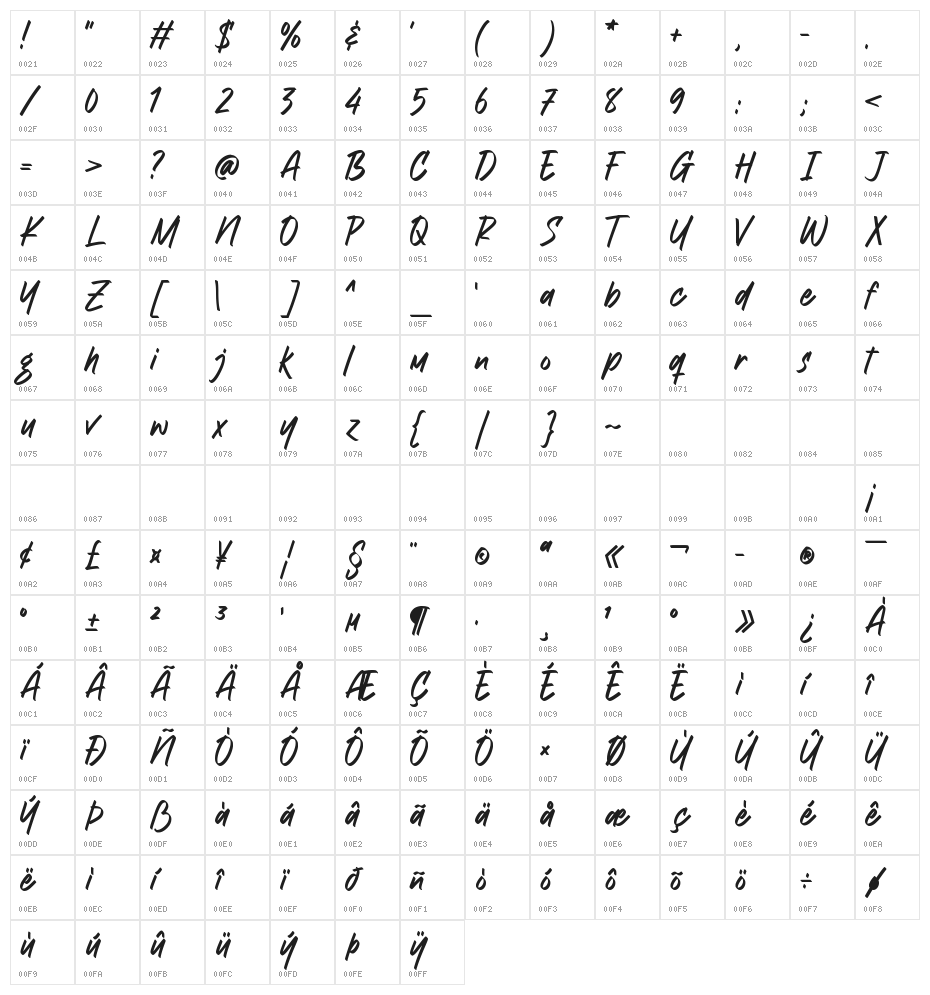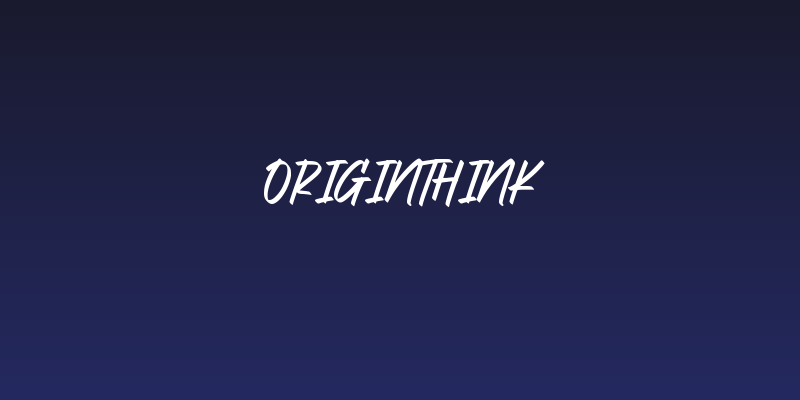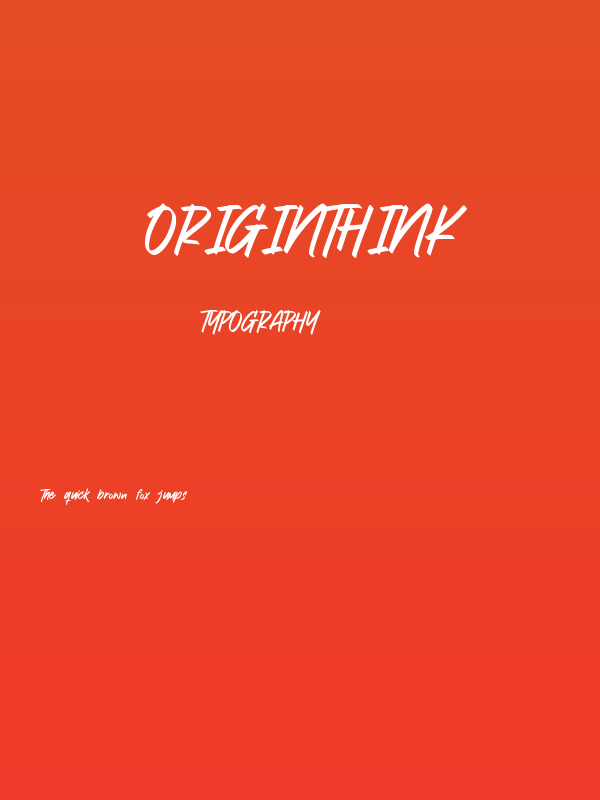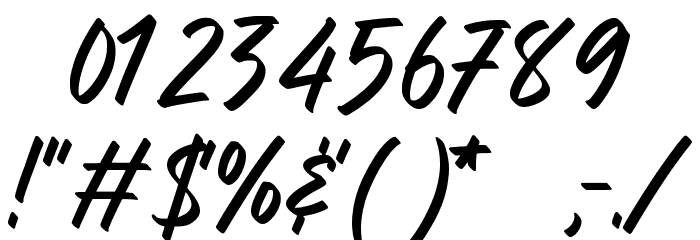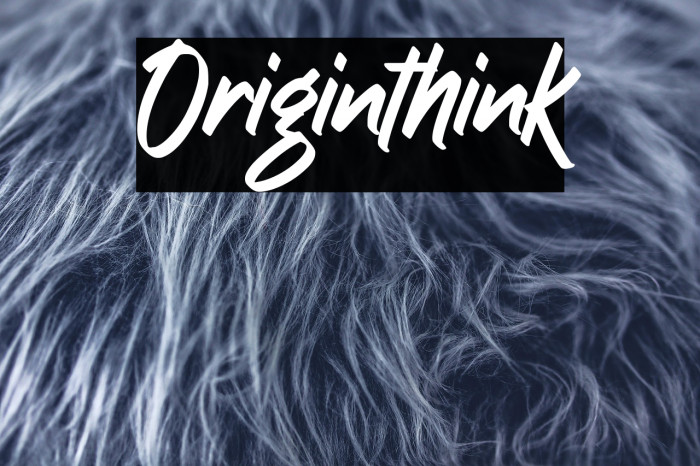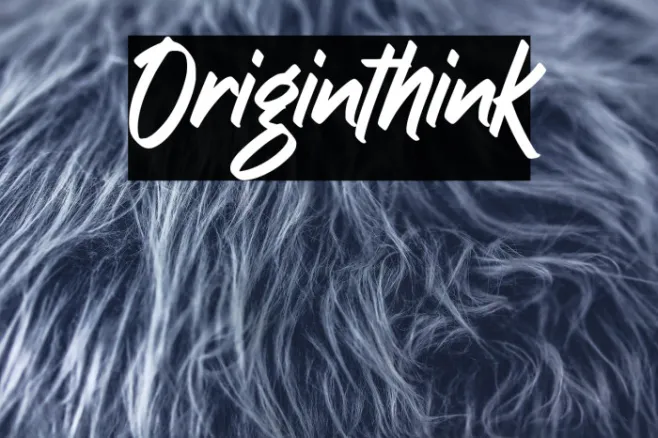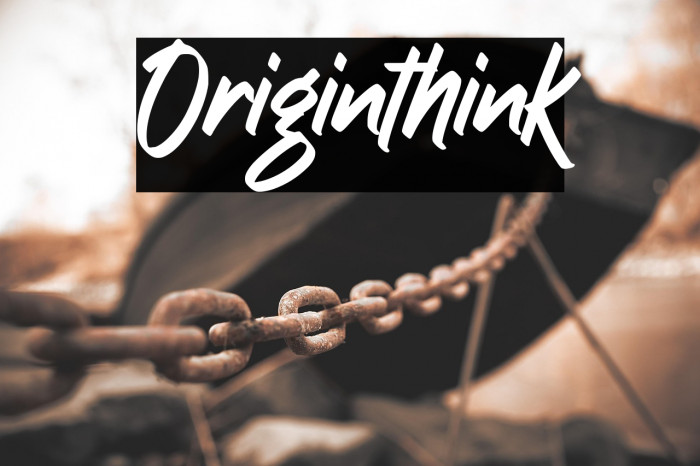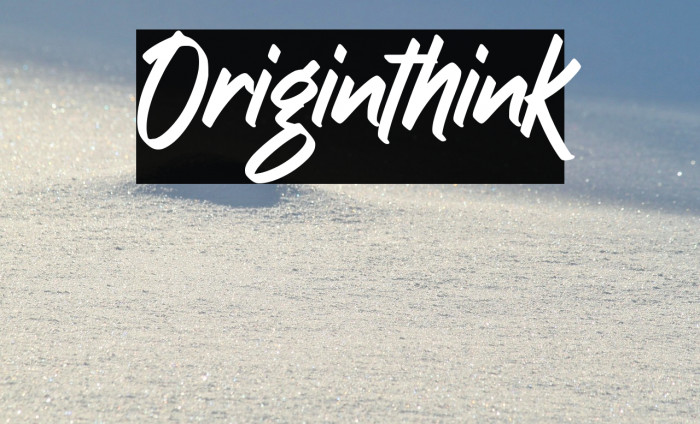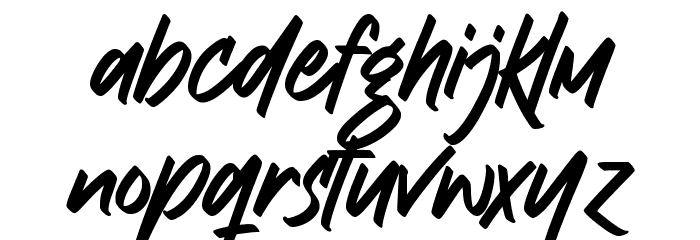
Originthink Font
Originthink Description
This font exudes a dynamic and energetic style, characterized by its bold and fluid strokes that mimic the natural flow of handwriting. The uppercase and lowercase letters maintain a consistent slant, giving the text a sense of motion and liveliness. The numerals and special characters are crafted with the same attention to detail, ensuring uniformity across all elements. The font's overall appearance is both modern and expressive, making it ideal for projects that require a personal touch or a sense of informality. Its boldness ensures readability, while the handwritten style adds a unique flair.